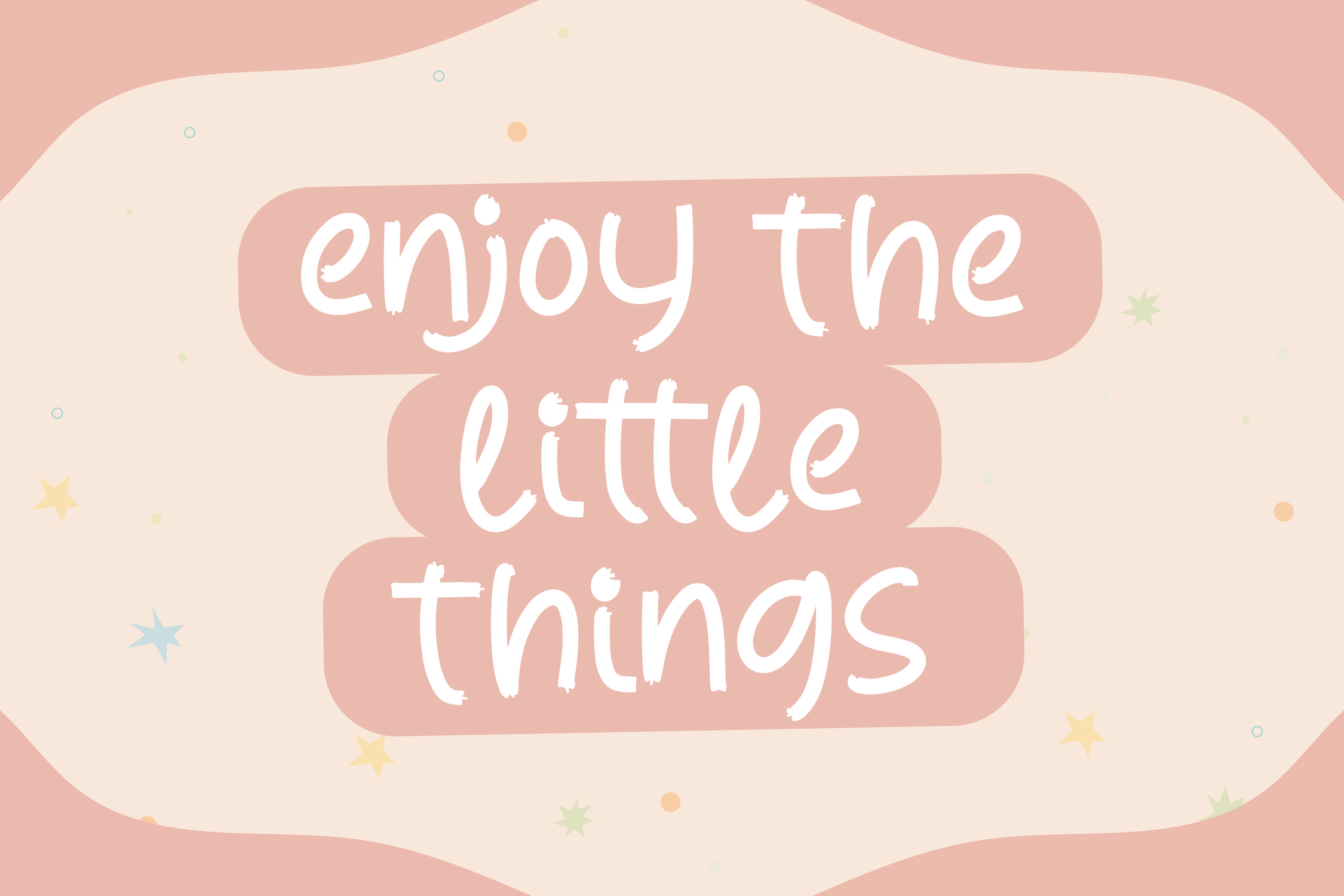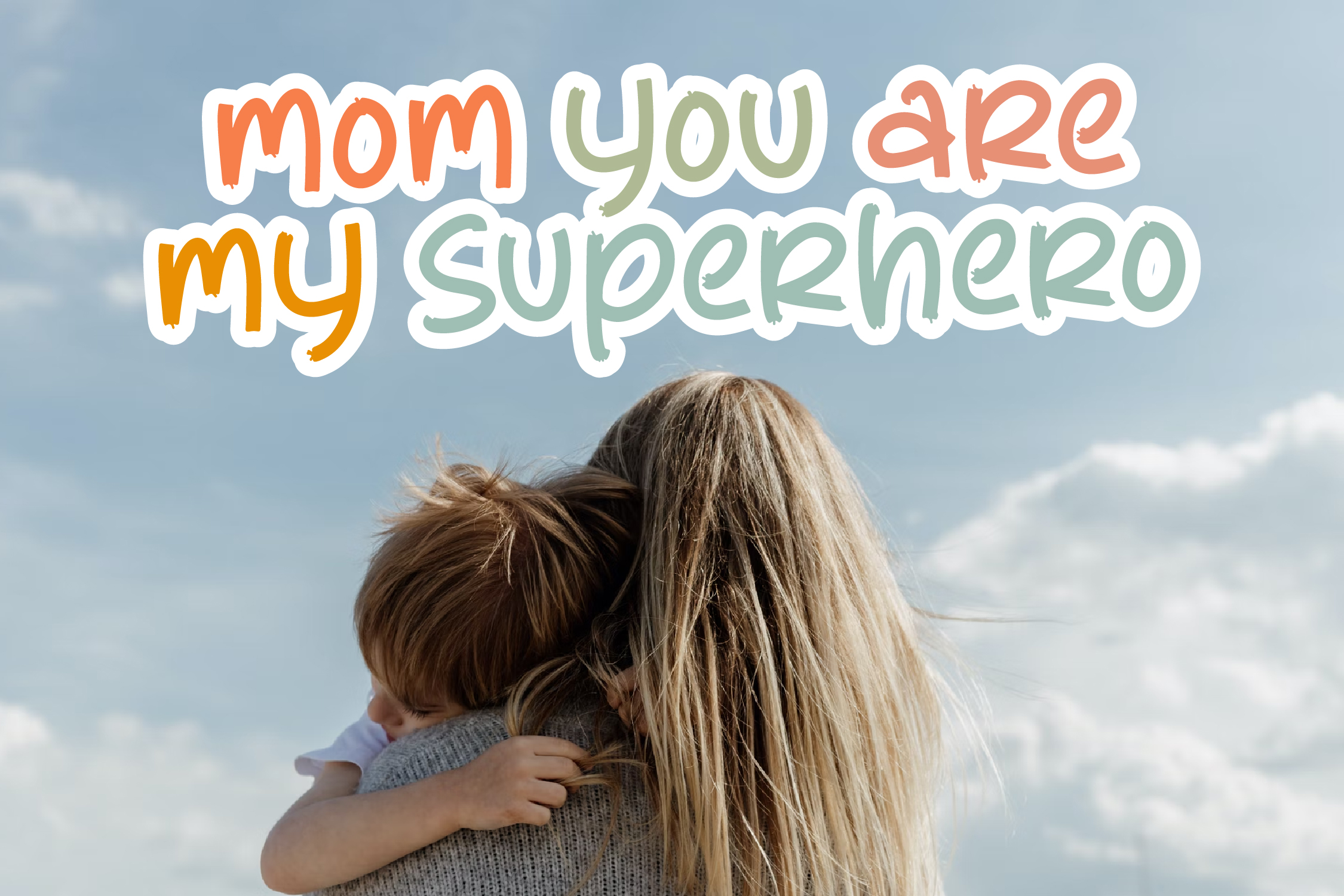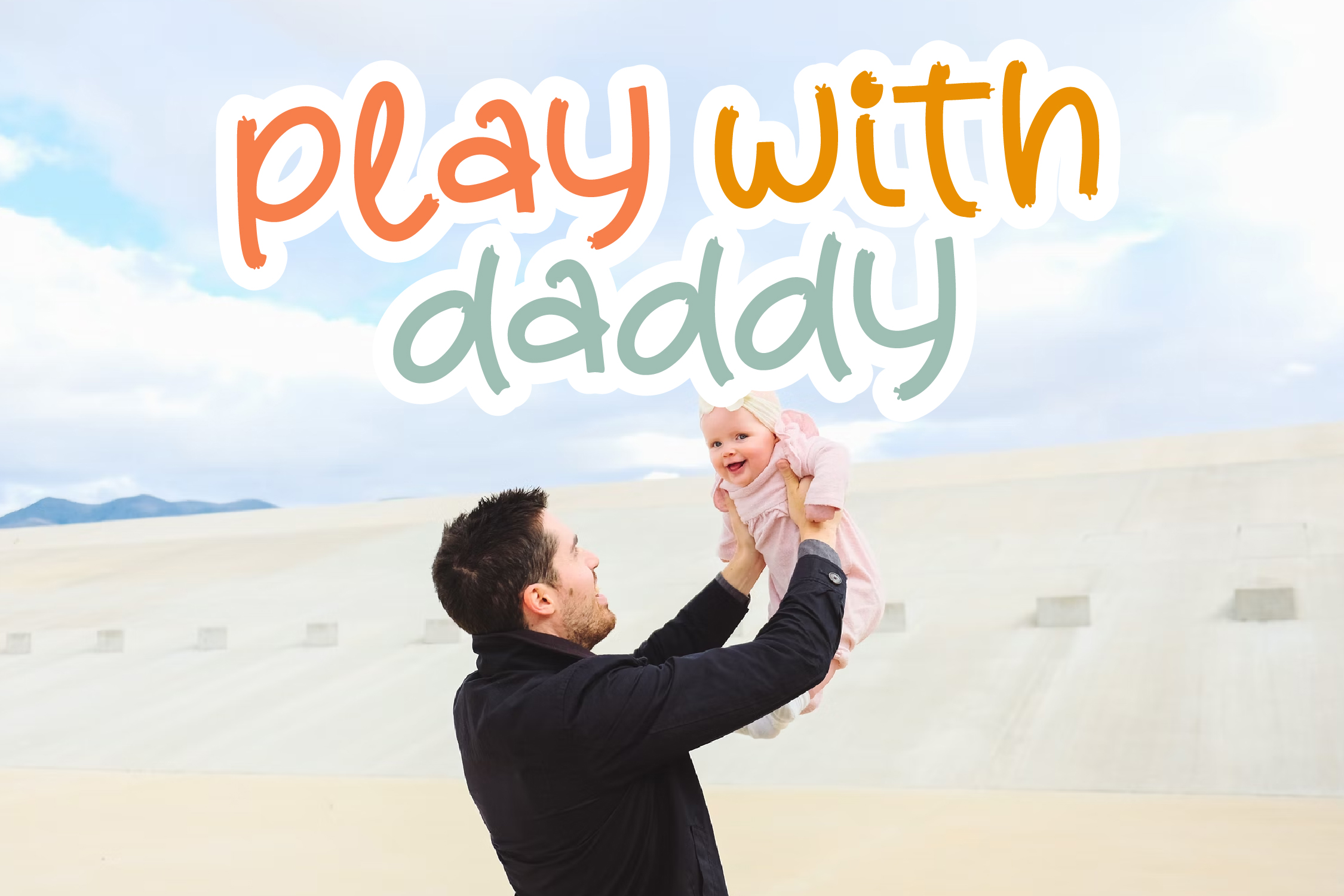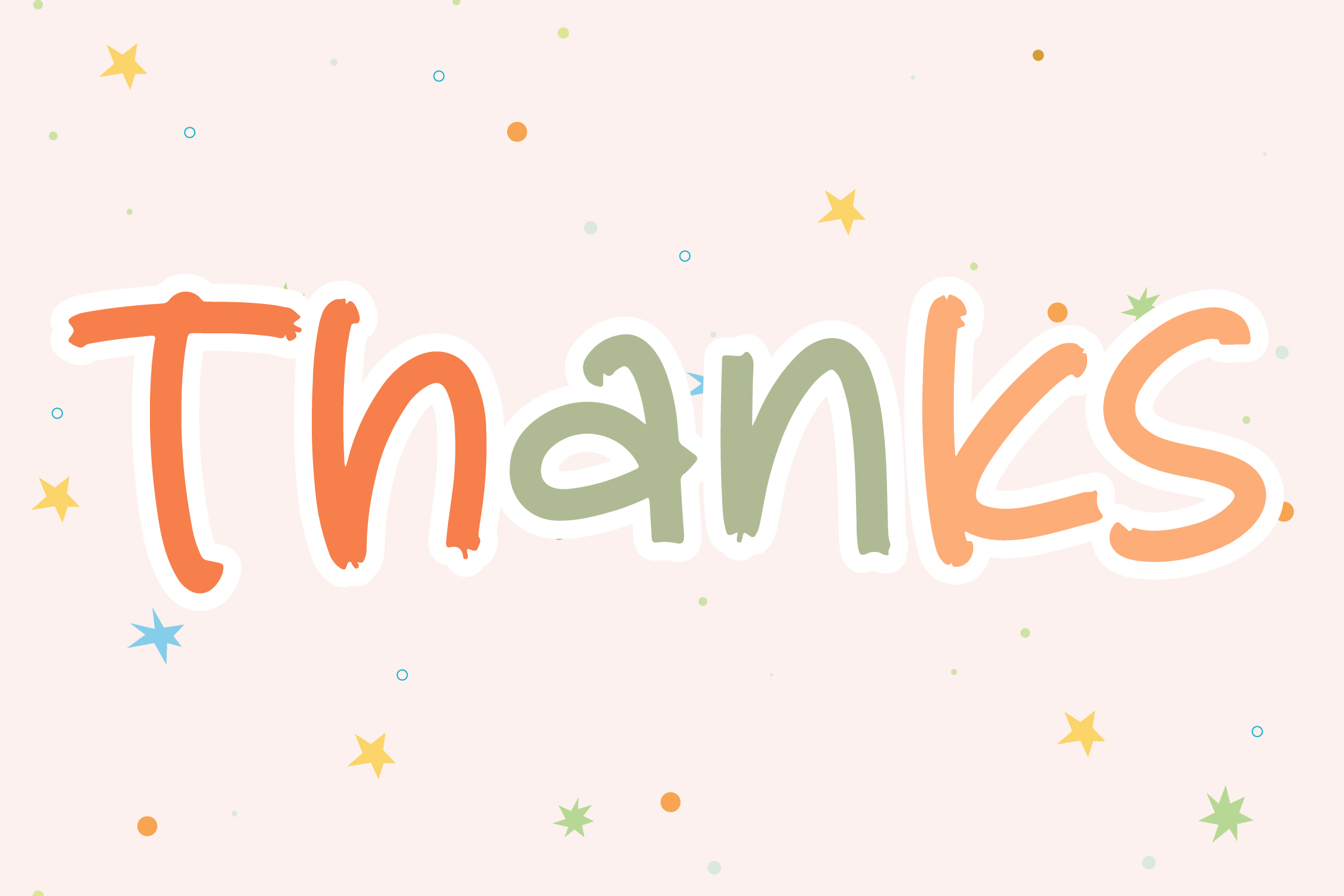
Gelima Font
Gelima Display Font
This is playful display font, suitable for any projects such as: logos, branding projects, homeware designs, product packaging, mugs, quotes, posters, shopping bags, t-shirts, book covers, name card, invitation cards, greeting cards, label, photography, watermark, special events, and all your other lovely projects that need a beautiful script taste.